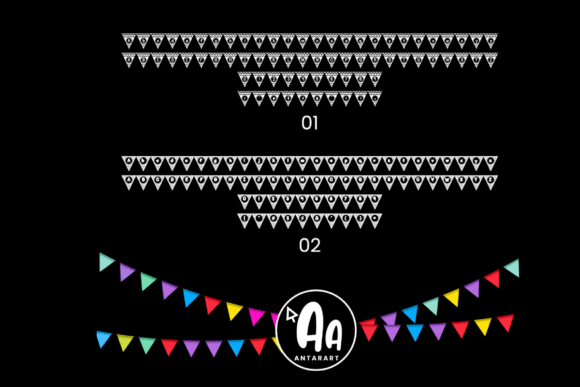
Introducing the Abcd Ref Triangle Banner4 Font: Elevate Your Designs with Bold and Creative Flair
Are you looking for a unique and modern way to add a pop of personality to your designs? Look no further than the Abcd Ref Triangle Banner4 Font, now available in two stylish variations: Marble and Zig Zag. This versatile font is perfect for creating eye-catching classroom decorations, bulletin board titles, banners, and wall displays that are sure to capture attention.
What is the Triangle Banner Font?
The Triangle Banner Font is a one-of-a-kind font that features each letter designed inside a chic triangular pennant. This clever design makes it easy to create a wide range of projects, from vibrant classroom bunting and motivational posters to door and wall décor, party banners, and event signage. The font’s modern and fun twist is sure to add a bold and creative flair to your designs.
Two Stylish Variations: Marble and Zig Zag
The Abcd Ref Triangle Banner4 Font is available in two stylish variations: Marble and Zig Zag. The Marble variation features a sophisticated and elegant design, perfect for creating a polished and professional look. The Zig Zag variation, on the other hand, boasts a more playful and energetic vibe, ideal for adding a fun and whimsical touch to your designs.
Endless Possibilities for Classroom Organization and Creative Design
The Triangle Banner Font is a versatile tool that offers endless possibilities for classroom organization and creative design. Teachers can use it to customize bulletin boards, back-to-school setups, and holiday or seasonal decorations. The font is printable, editable, and reusable, making it easy to get creative and experiment with different designs.
Perfect for Elementary and Middle School Classrooms
The Abcd Ref Triangle Banner4 Font is perfect for elementary and middle school classrooms, where creativity and visual learning are essential. The font’s fun and modern design makes it an excellent choice for creating engaging and interactive learning materials, such as subject headers and themed displays.
Homeschool Learning Spaces and Party Planners Welcome!
But the Triangle Banner Font isn’t just limited to traditional classrooms. Homeschool learning spaces and party planners can also benefit from this versatile font. Create a unique and polished look for your homeschooling environment or add a professional touch to your party decorations and event signage.
- Printable, editable, and reusable: Get creative and experiment with different designs, without worrying about complicated software or expensive materials.
- Two stylish variations: Choose from Marble and Zig Zag styles to suit your design needs.
- Easy to use: Each letter is designed inside a chic triangular pennant, making it simple to create a wide range of projects.
- Perfect for classroom organization: Use the font to customize bulletin boards, back-to-school setups, and holiday or seasonal decorations.
- Ideal for creative design: Add a bold and creative flair to your designs, from vibrant classroom bunting to motivational posters and party banners.
The Abcd Ref Triangle Banner4 Font is a game-changer for designers and crafters looking to add a unique and modern touch to their projects. With its two stylish variations, Marble and Zig Zag, and endless possibilities for creative design, this font is sure to become a favorite in your design toolkit. So why wait? Download the Triangle Banner Font today and start creating eye-catching designs that are sure to impress!